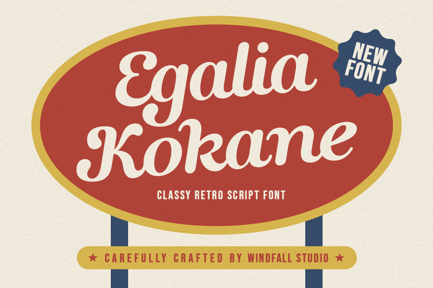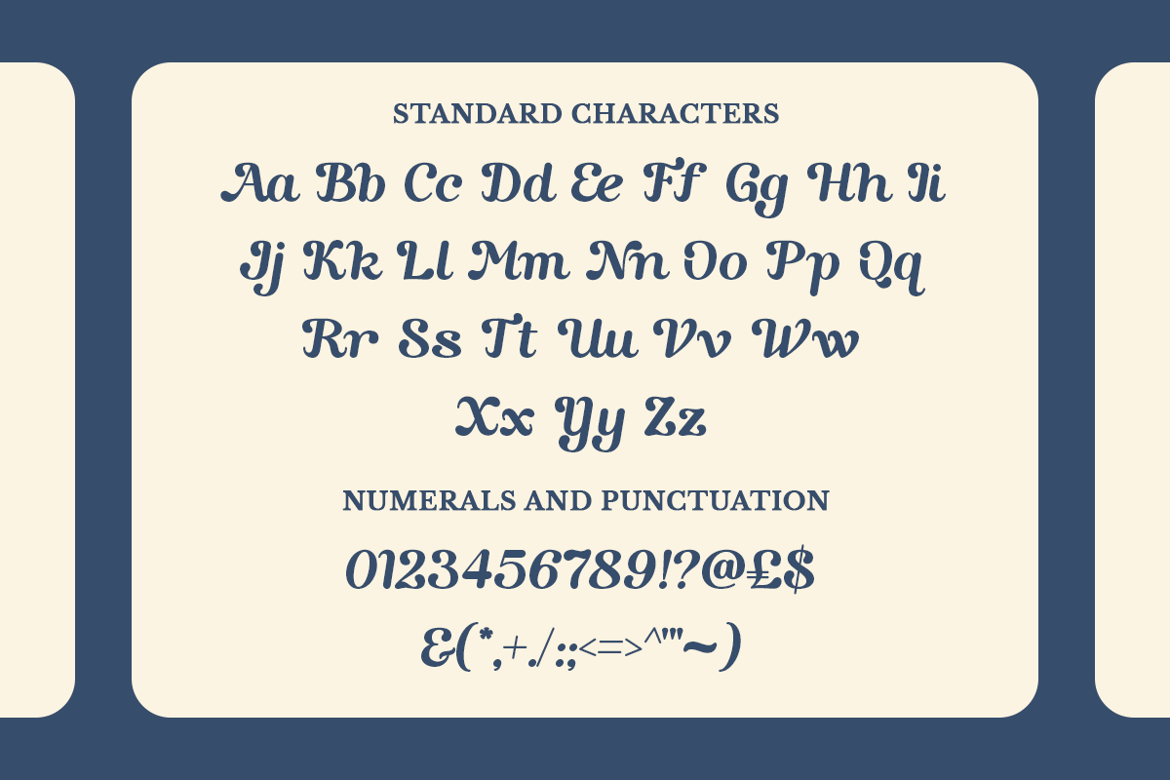
Egalia Kokane – Classy Retro Vintage Script Font
* Classy Retro Script: With its smooth curves and classic style, Egalia Kokane brings a touch of elegance to any project.
* Vintage Charm: Inspired by the timeless designs of the past, this font exudes a nostalgic feel that is perfect for vintage-inspired designs.
* Versatile Applications: Ideal for wedding invitations, movie posters, branding, product packaging, and more. Its versatility makes it a great choice for various creative projects.
* Elegant & Stylish: The refined design of Egalia Kokane ensures each letter stands out beautifully, adding a touch of sophistication to your work.
* Handcrafted Quality: Every detail of this font has been meticulously designed to deliver a clean, aesthetic finish.